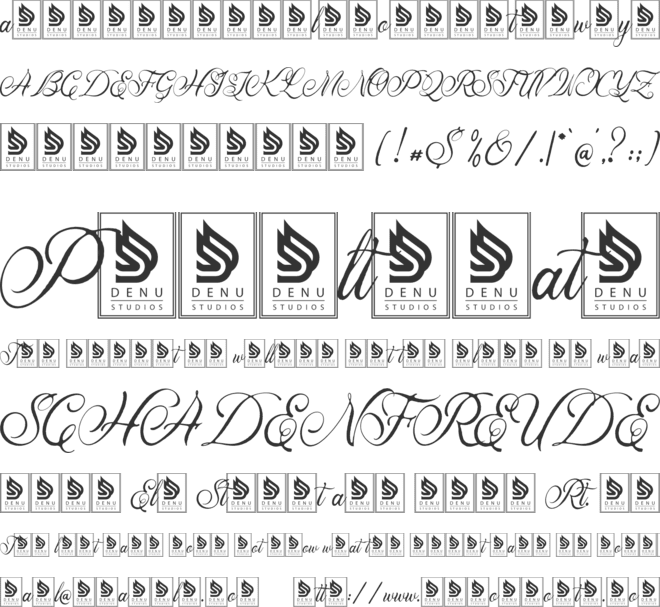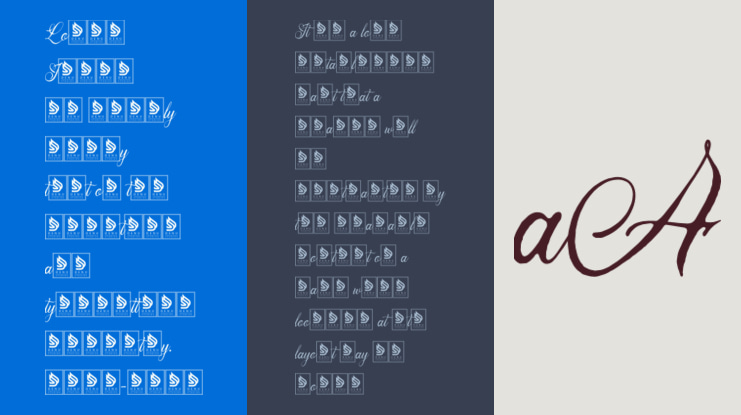
Dede Nugraha
Howtaly | Elegant Vintage Script, is suitable for any projects such as: logos, branding projects, homeware designs, product packaging, mugs, quotes, posters, shopping bags, t-shirts, book covers, name card, invitation cards, greeting cards, label, photography, watermark, special events, and all your other lovely projects that need a Script taste.